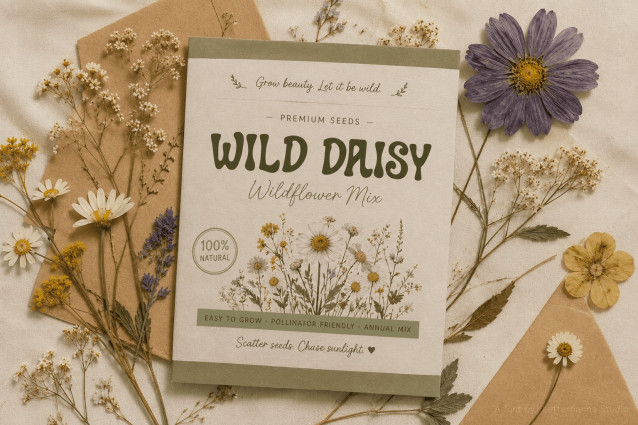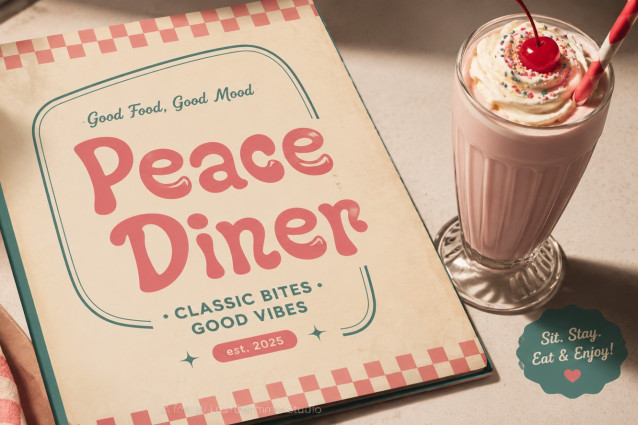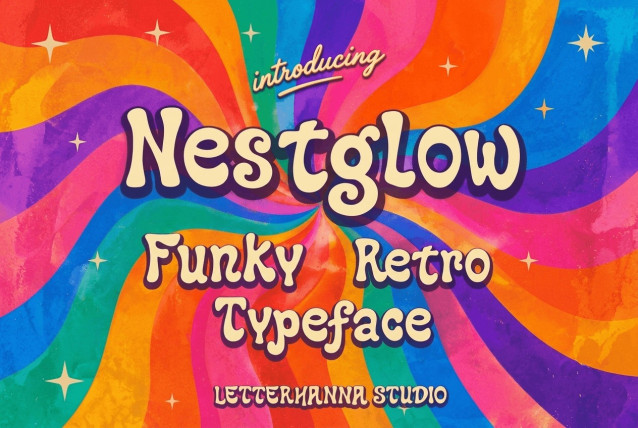
Nestglow Font
Nestglow Font | Retro Wave Font with Funky, Bold, and Psychedelic Design
Every design trend has a soundtrack, and for this typeface, it’s unmistakably funk and soul vinyl spinning on a turntable somewhere in 1973. This isn’t a font that whispers — it grooves, bounces, and radiates personality from every curve. If you’ve been on the hunt for a retro wave font that instantly transports viewers to an era of bold colors and free-spirited creativity, you’ve found your match.
At first glance, what stands out is the confidence in every stroke. The letterforms are thick and rounded, almost sculptural, with playful curled details at the terminals of letters like A, K, and R. This isn’t subtle design — it’s a retro bold font built to command attention on posters, packaging, and headlines alike. Yet despite its boldness, there’s nothing stiff about it. The single-story lowercase “a,” the relaxed baseline, and the slightly imperfect curves give it a hand-lettered charm that feels warm and human.
That warmth is the secret behind why funky font styles like this one continue to resonate so strongly with modern audiences. In a digital landscape saturated with clean, minimal sans-serifs, this typeface stands out by embracing personality over perfection. It doesn’t try to look “correct” — it tries to look alive. And that authenticity is exactly what today’s brands crave when they want to feel more human and less corporate.
Let’s rewind for a moment. Imagine flipping through a stack of old vinyl records at a thrift store — the kind with hand-illustrated covers, swirling typography, and colors that seem to pulse off the sleeve. That visual language wasn’t created by algorithms or trend reports; it came from artists experimenting with ink, brushes, and imagination. This is the same spirit behind classic psychedelia font design — expressive, unpredictable, and deeply tied to a specific cultural moment. This typeface captures that same rebellious creativity while remaining clean and functional for modern digital and print use.